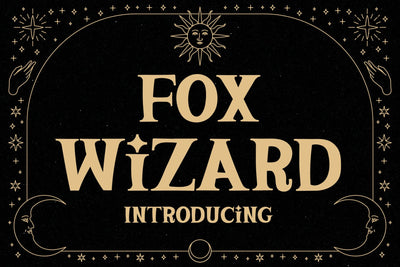
Fox Wizard Font
Fox Wizard is a vintage and cool slab serif font. this font is perfect for publications, logos, business cards, or printed on t-shirts, this font will look outstanding on everything, no matter the topic. This font will be an incredible asset to your fonts’ library, as it has the potential to elevate any creation.